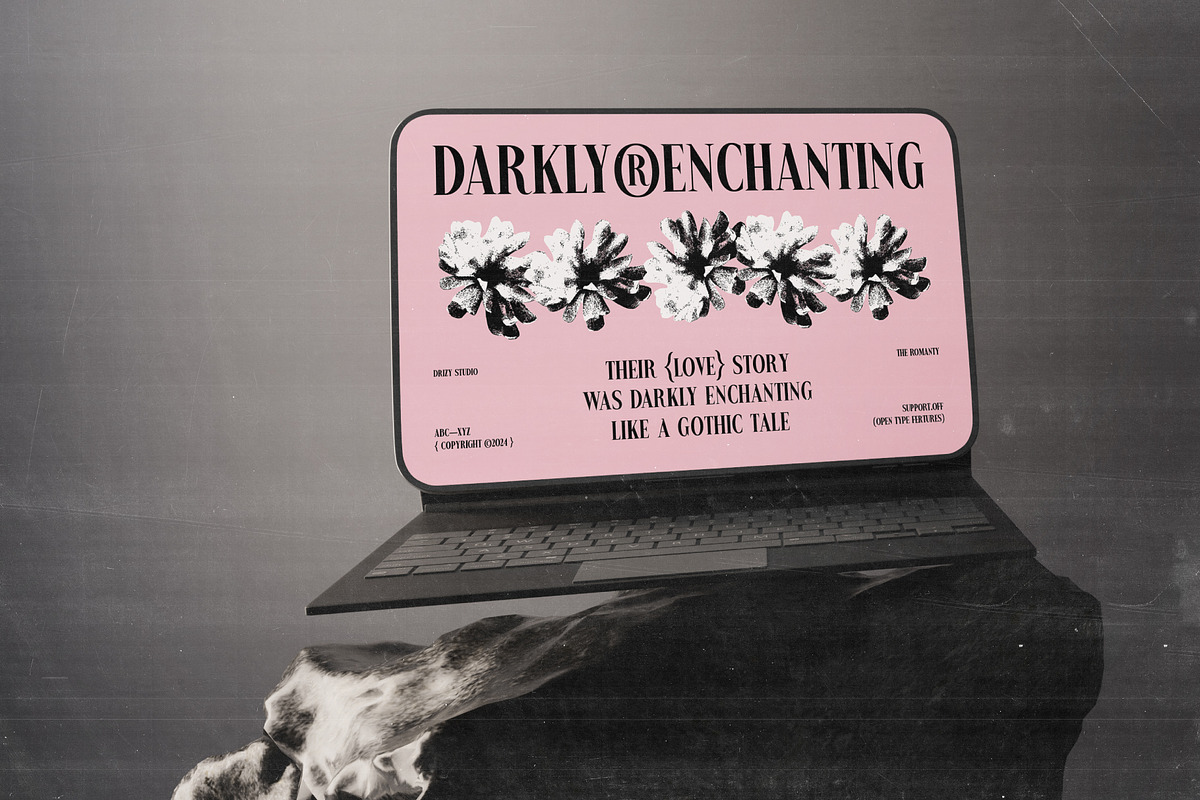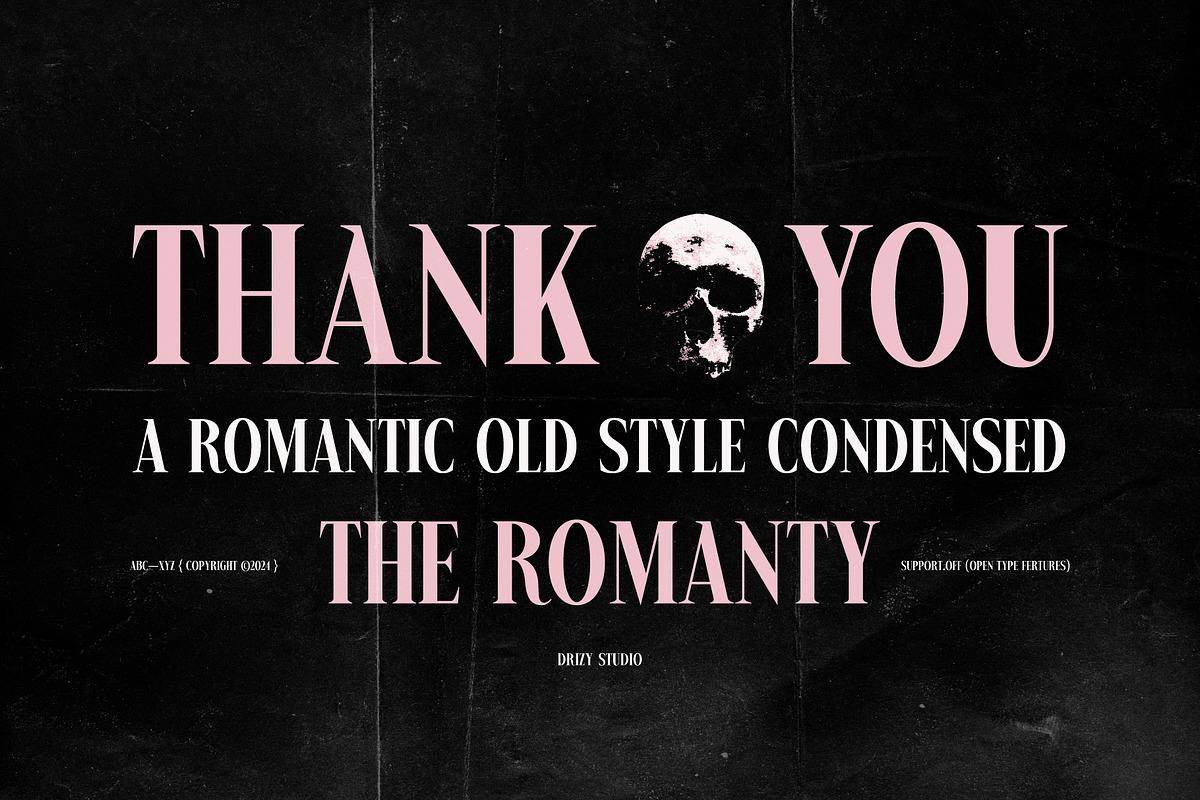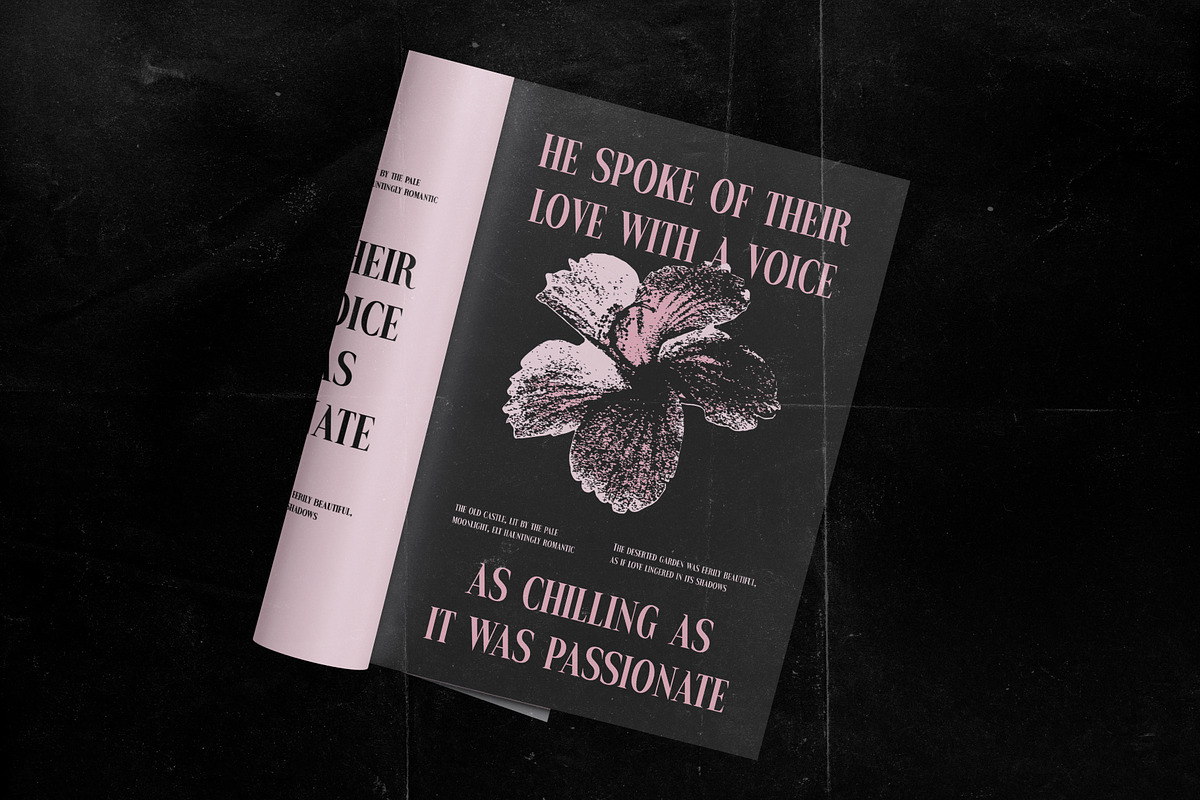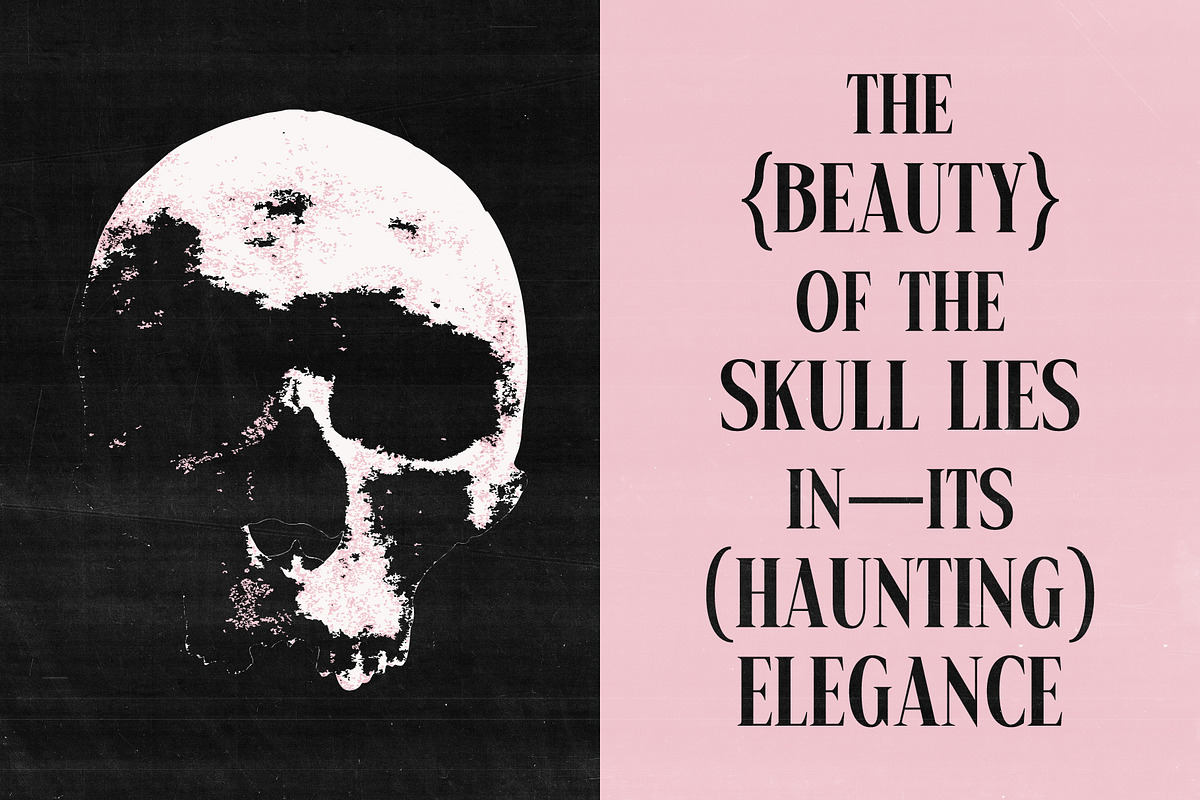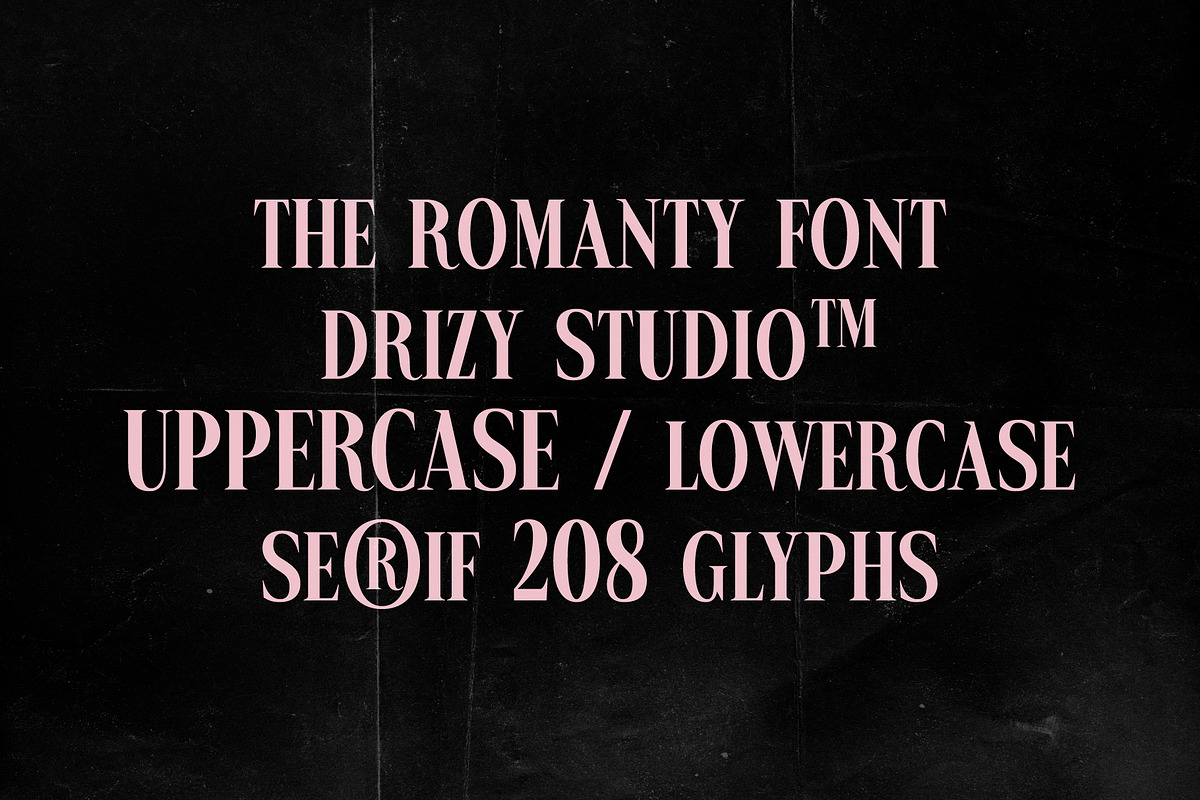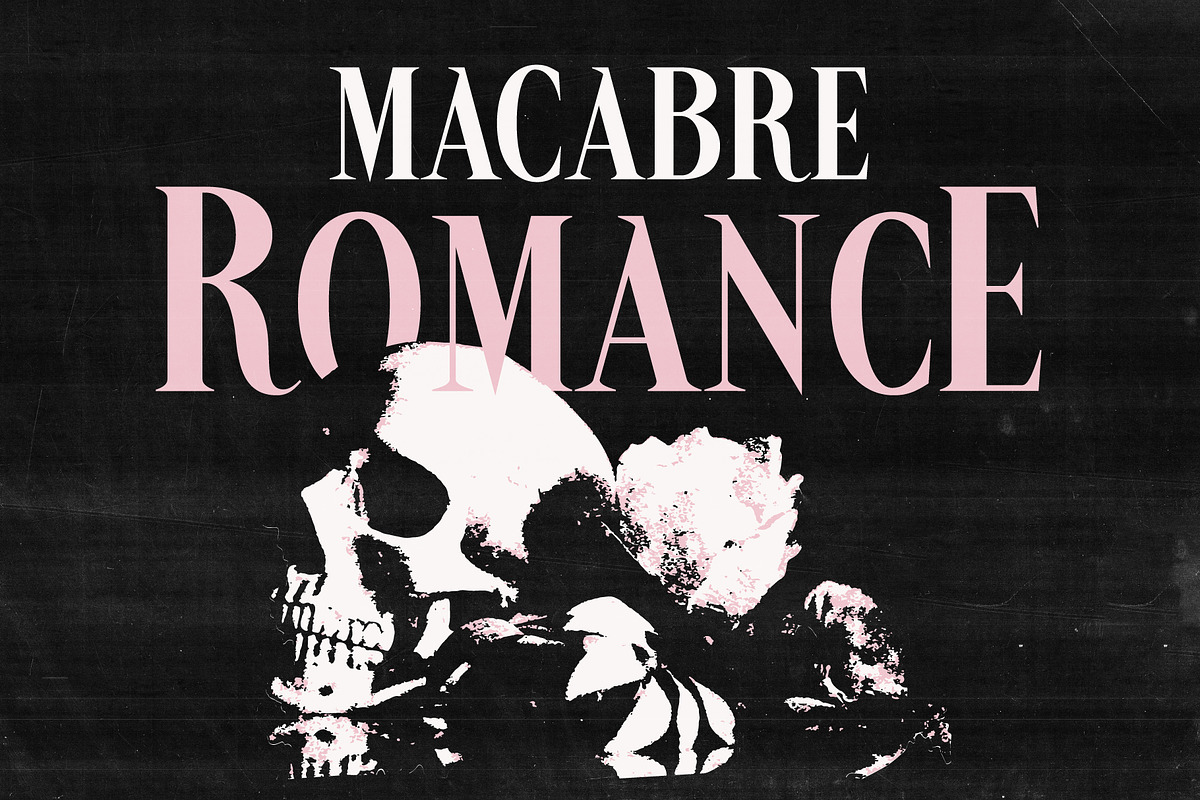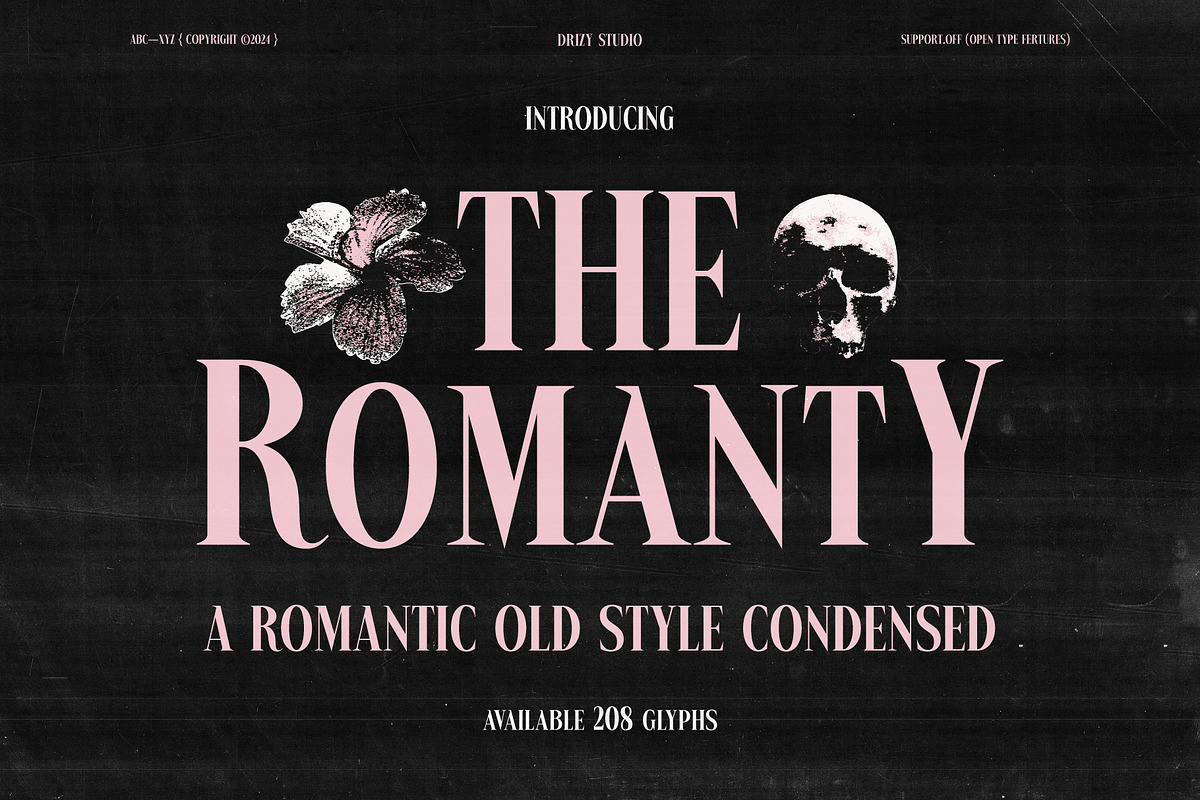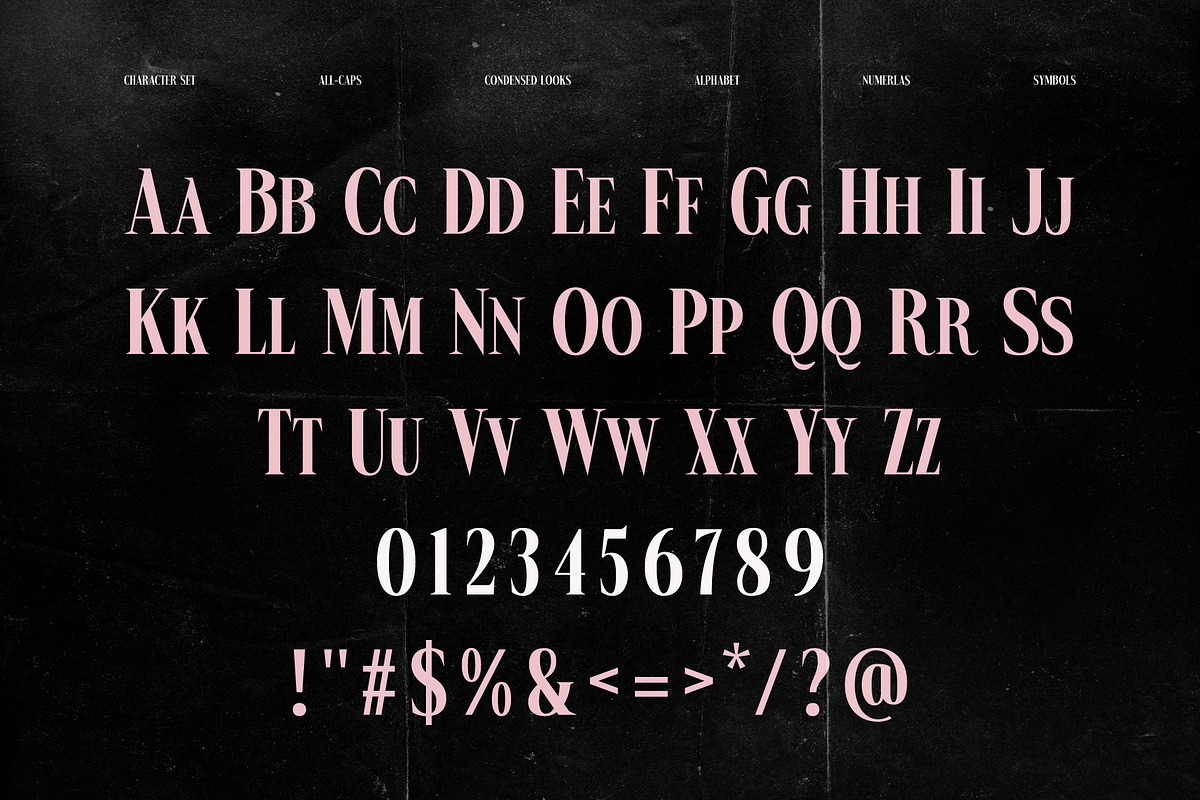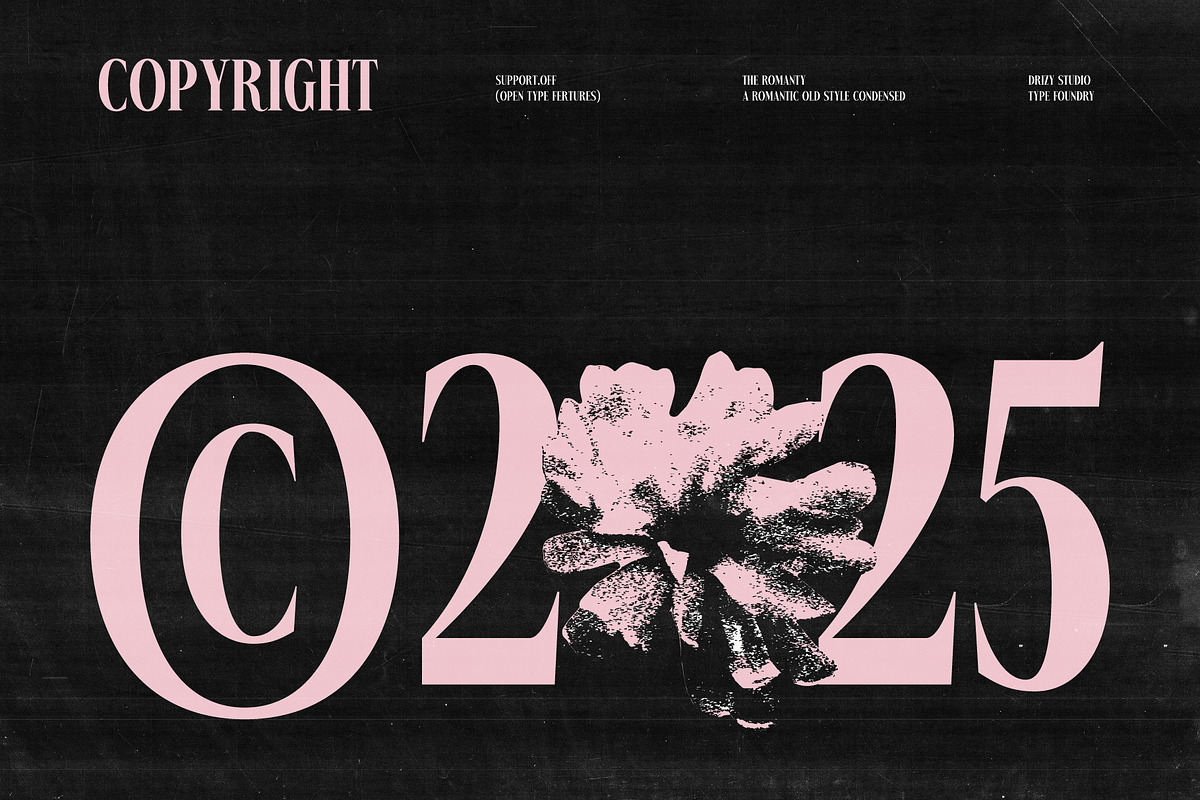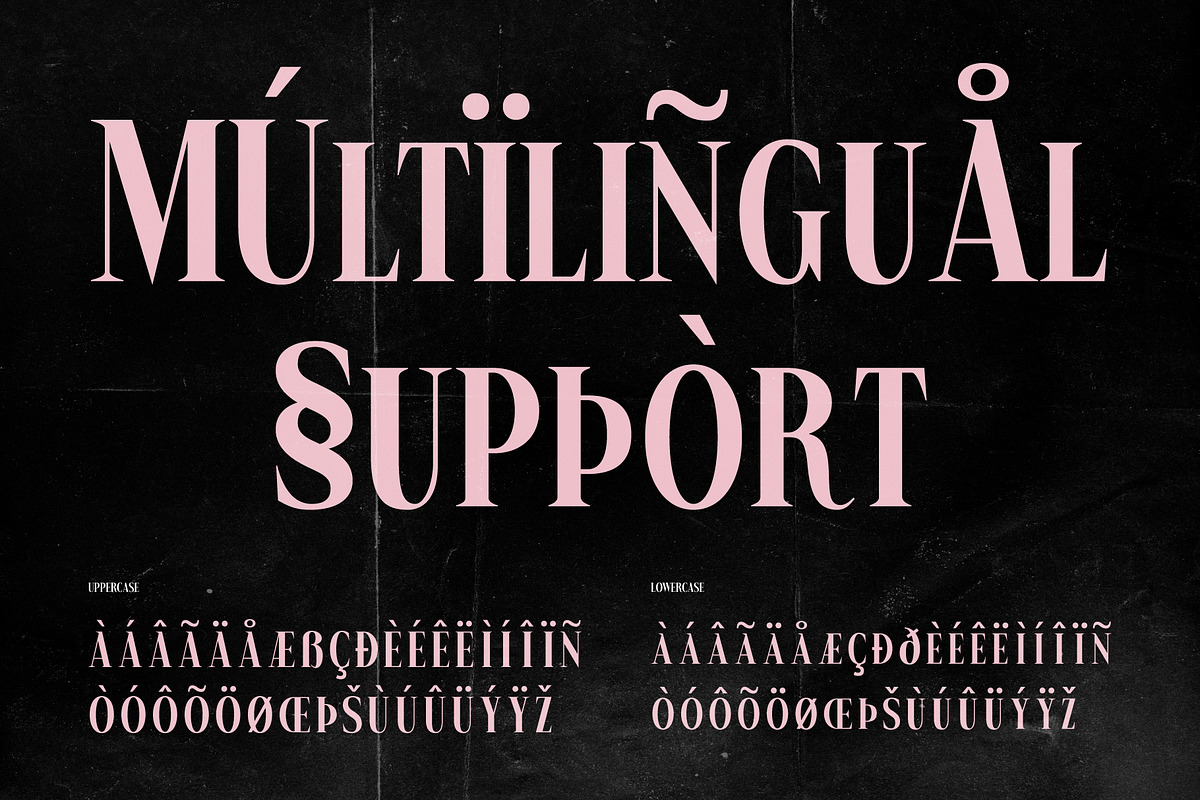
The Romanty – Romantic Old Style
The Romanty – Romantic Old Style Condensed Font
Step into a world of enchanting nostalgia with The Romanty, a romantic old style condensed font designed to evoke deep emotions and timeless elegance. Perfectly tailored for the Emo Romance aesthetic, this font merges vintage charm with a touch of dramatic flair. It’s slender, condensed characters create an air of sophistication, making it ideal for love letters, poetic expressions, gothic-inspired projects, or dreamy wedding themes. Let The Romanty bring a heartfelt touch to your designs, capturing the delicate balance between passion and melancholy.
The Romanty – Romantic Old Style Condensed Font features:
- Character Set (All Caps)